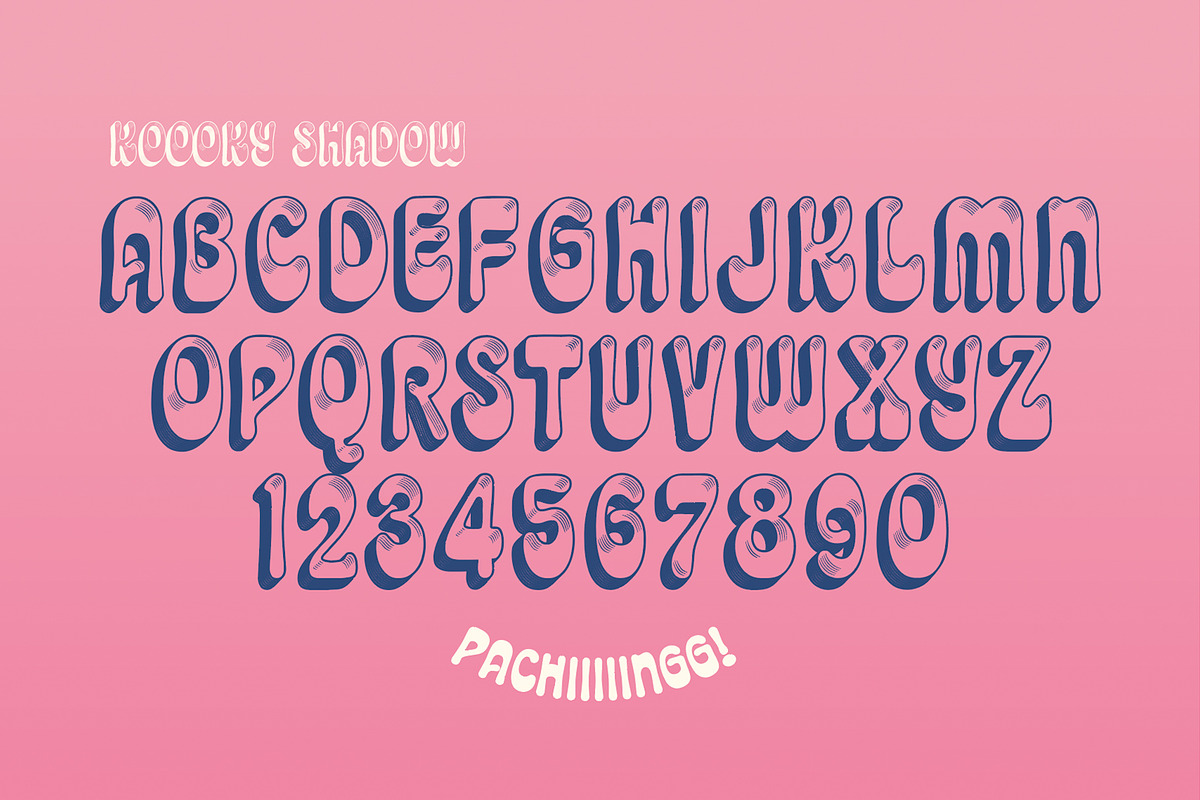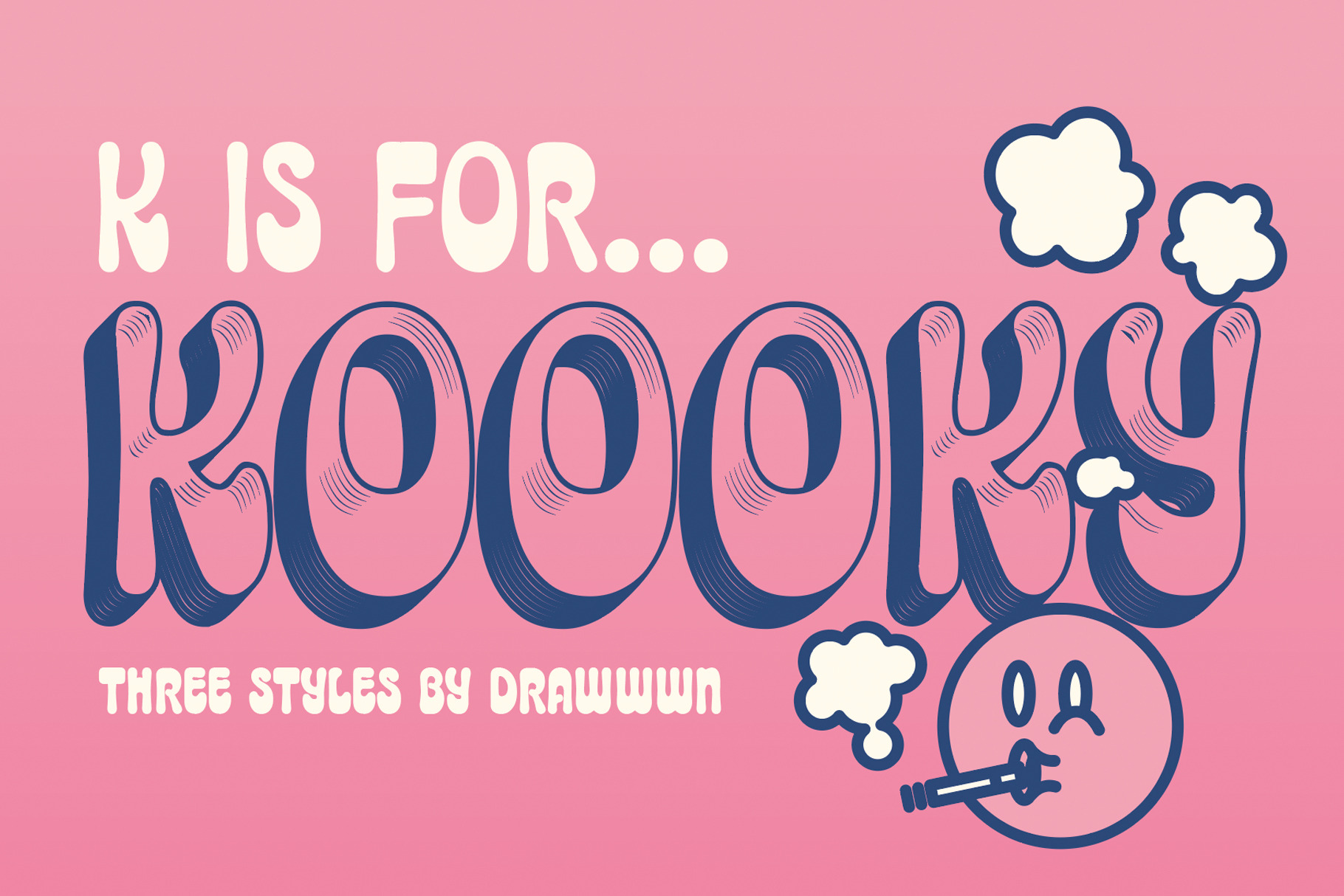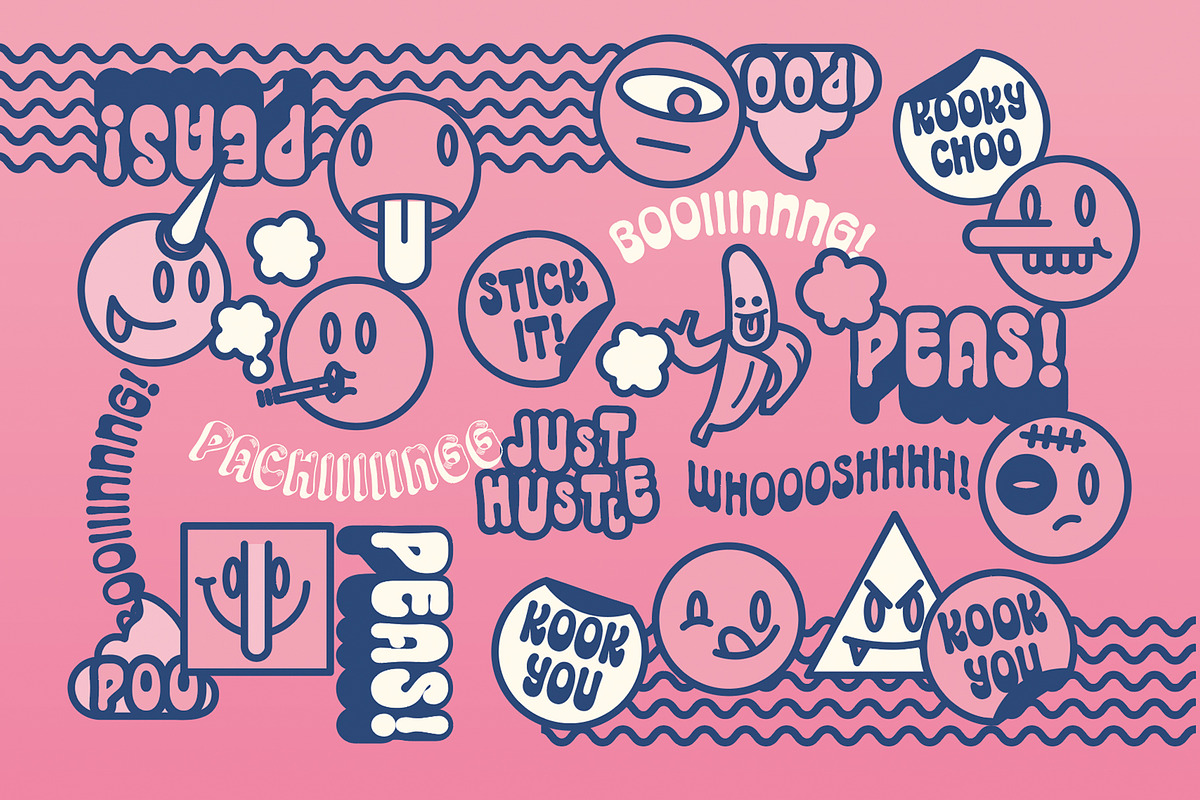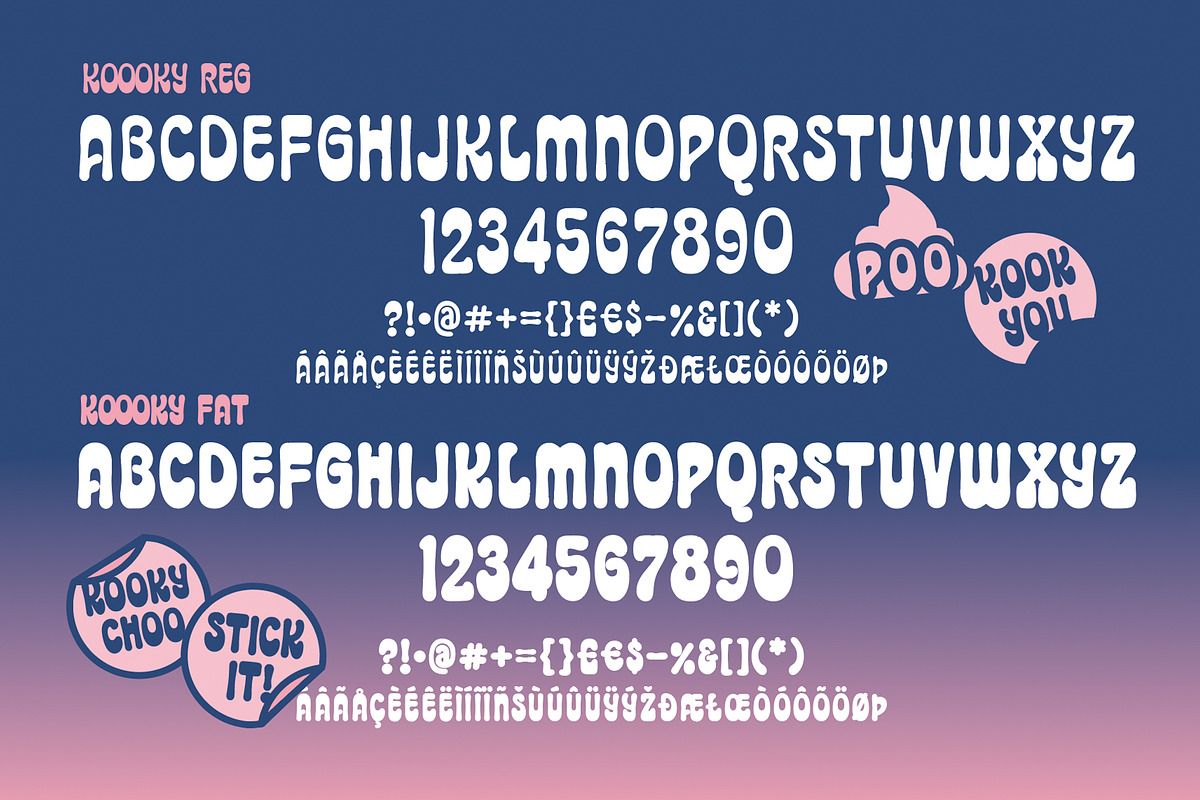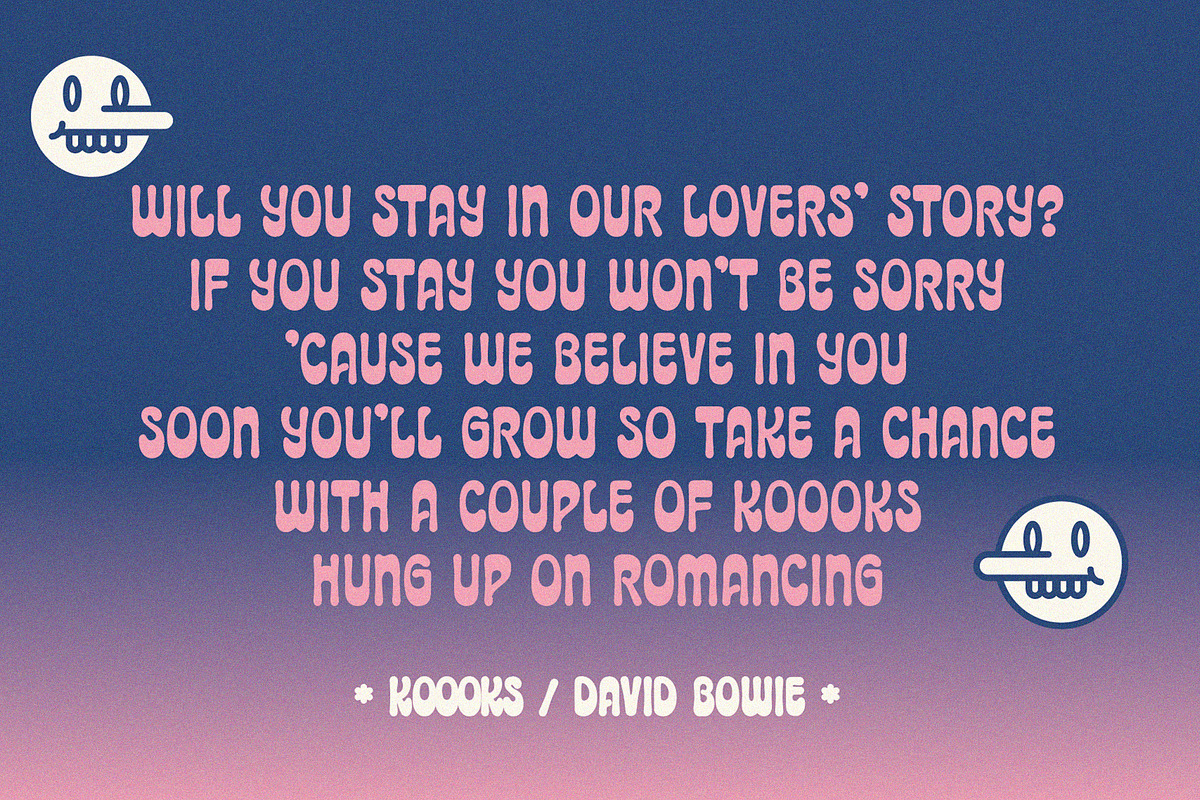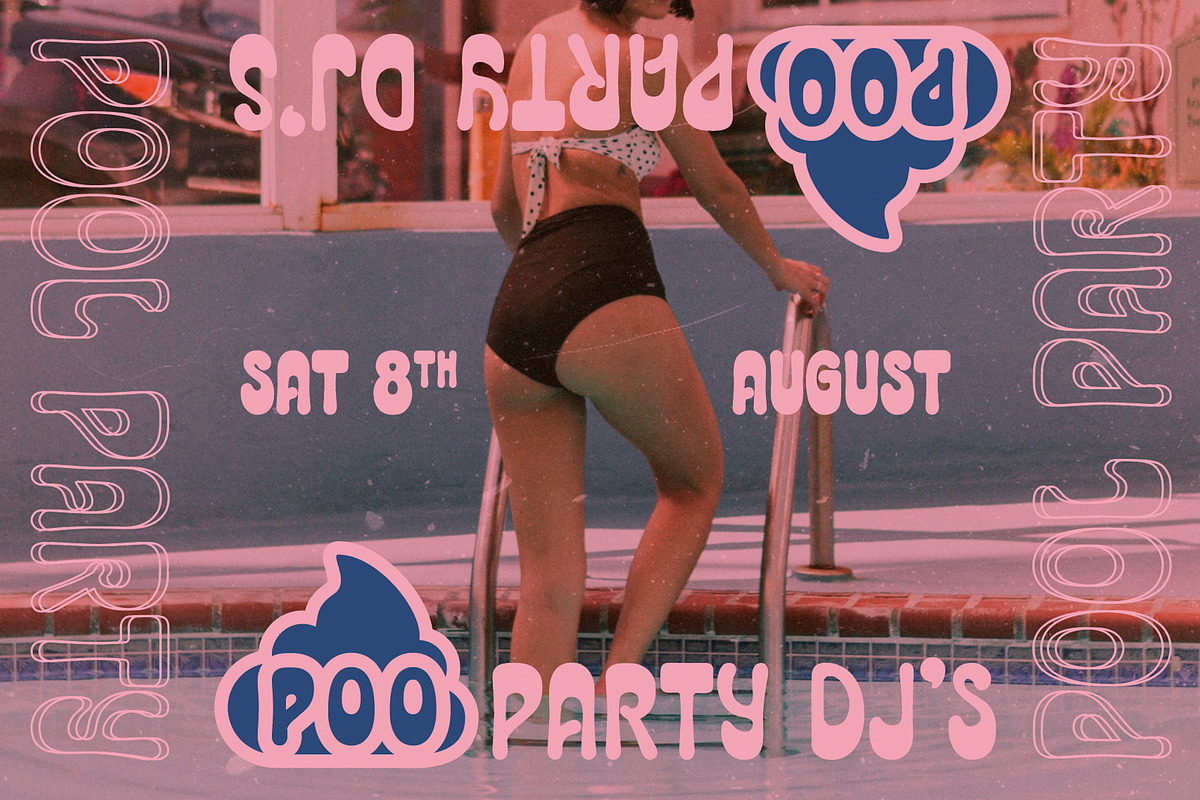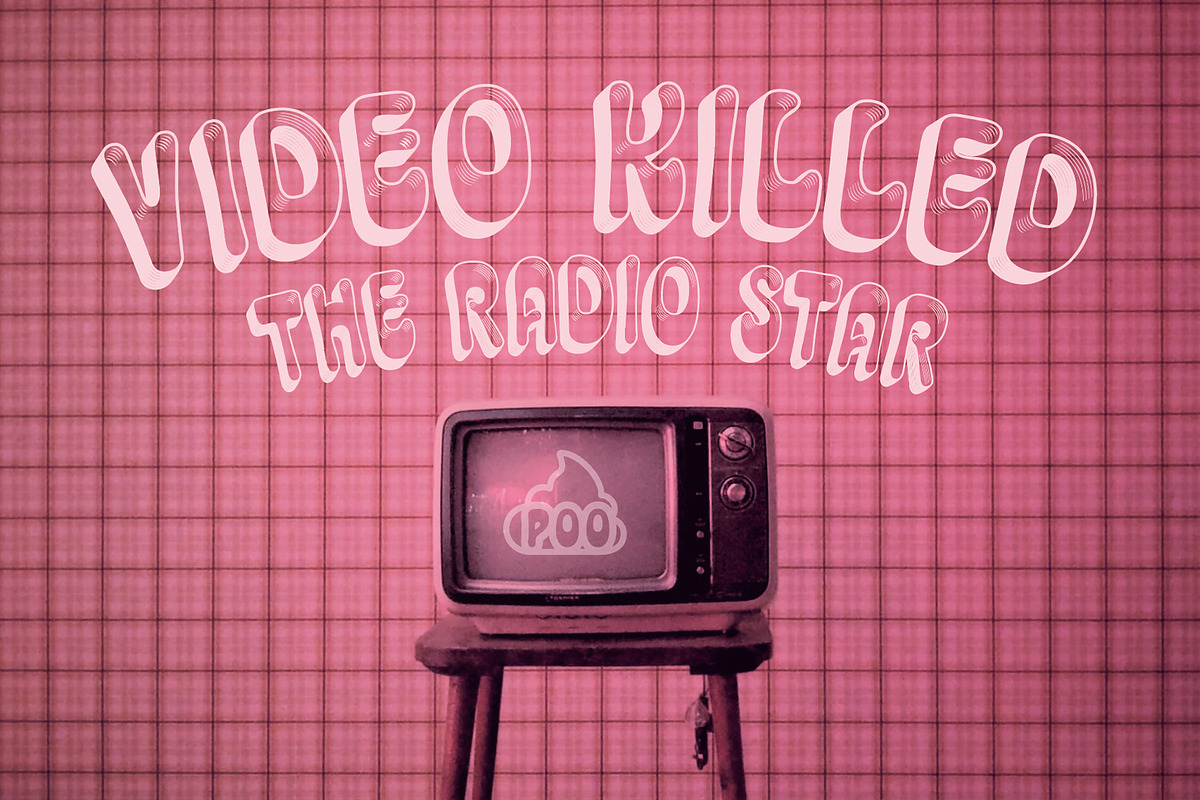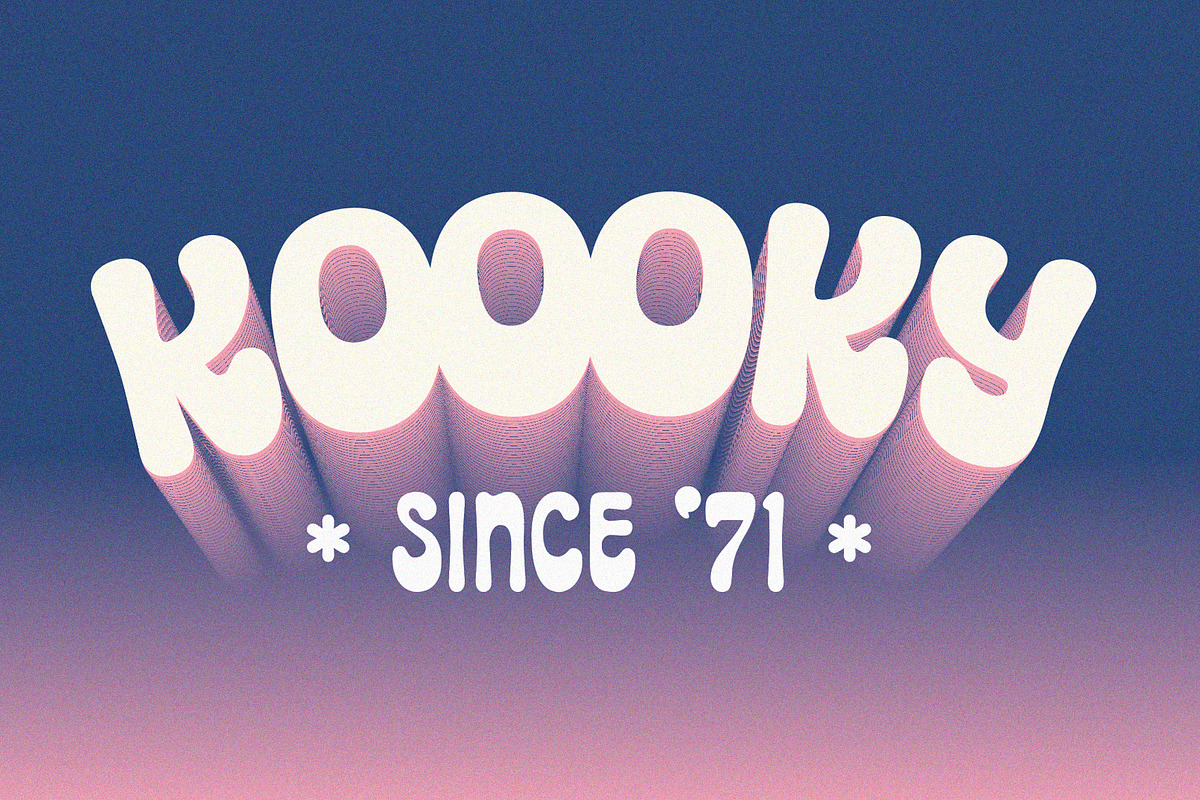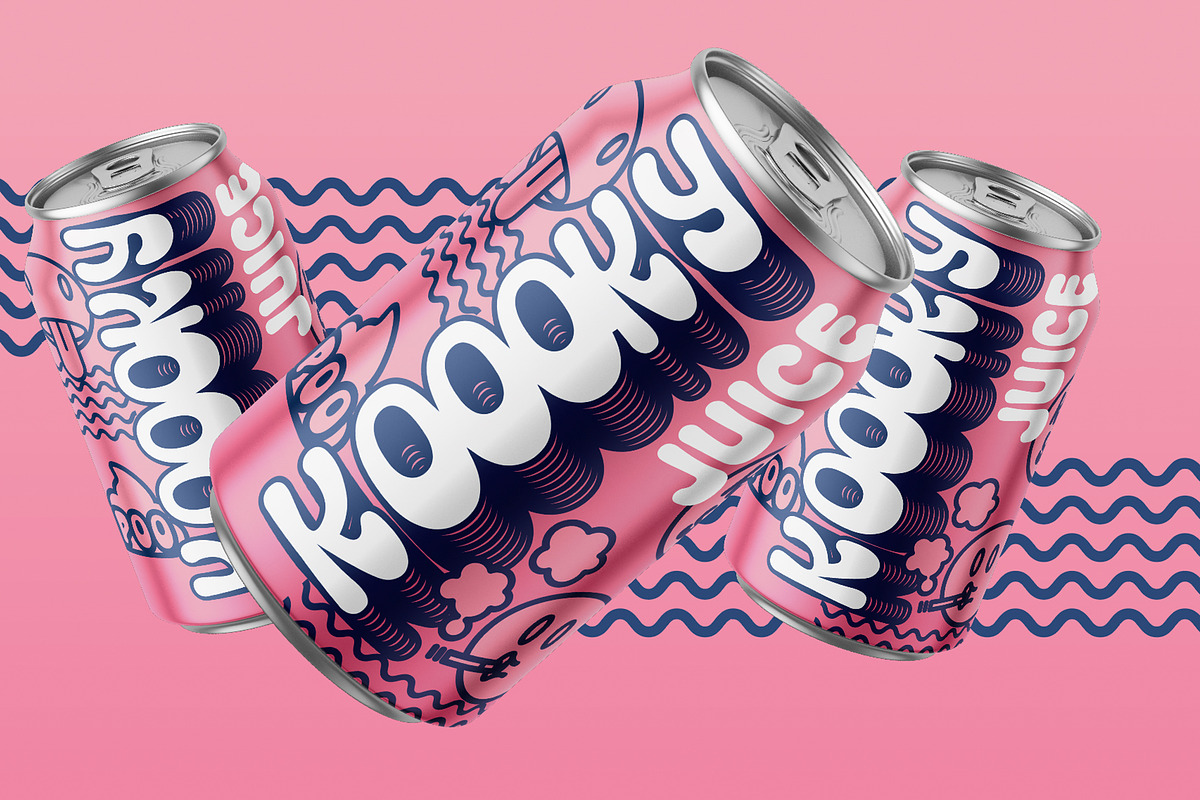
Koooky | retro font
Koooky is a real bell bottom of a font. Funky, fun and discotastic. It's hippy dippy vibes will work well with kids sweet wrappers, 70's TV sitcoms and hipster barista magazines. It has three weights, regular, fat and shadow (a cool 3D). So fill your kinky boots and get Koooky!